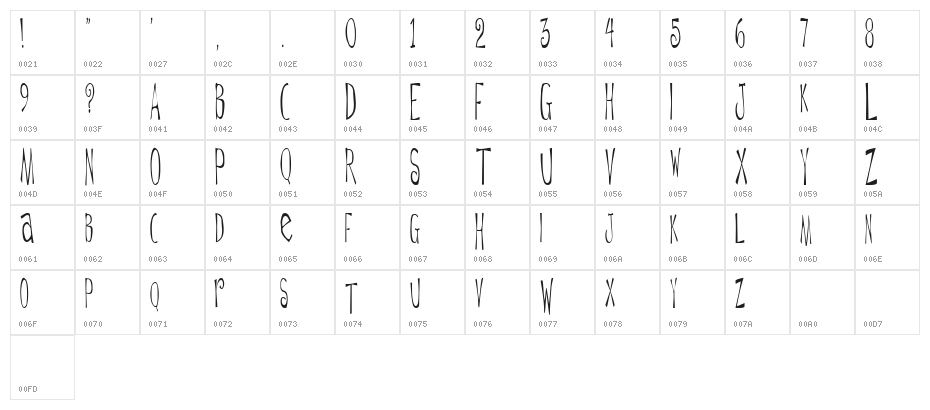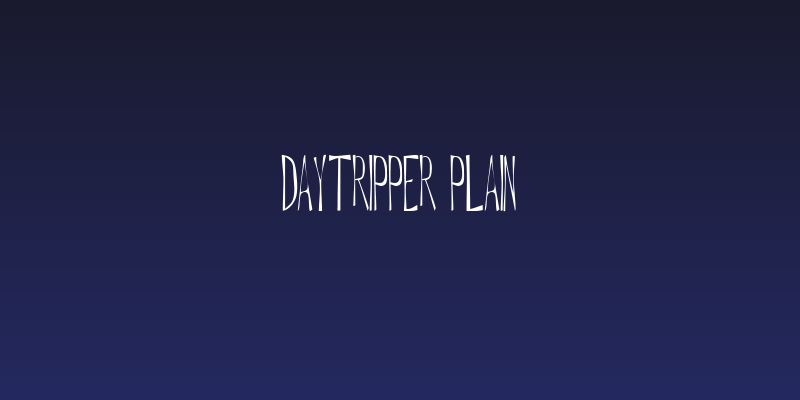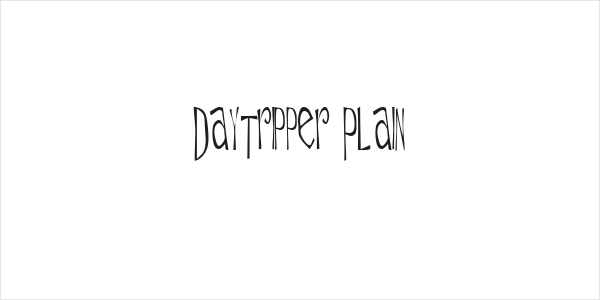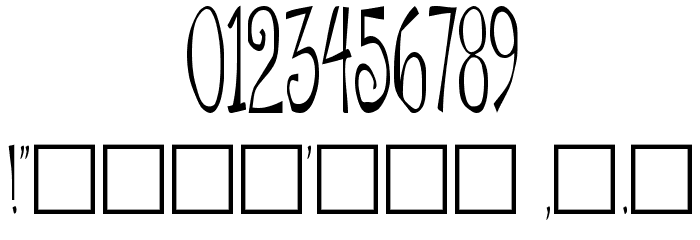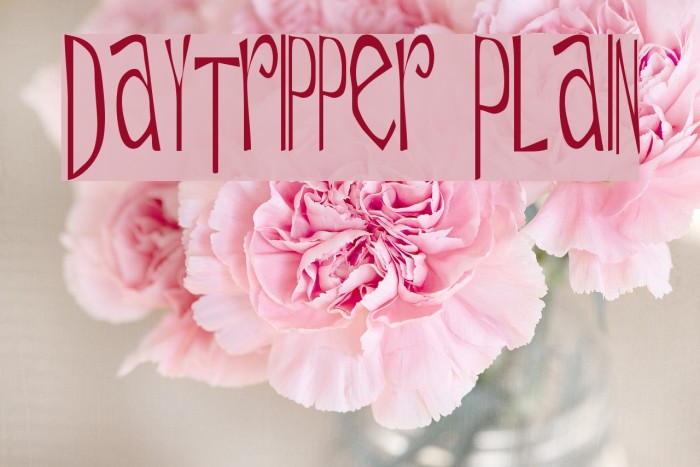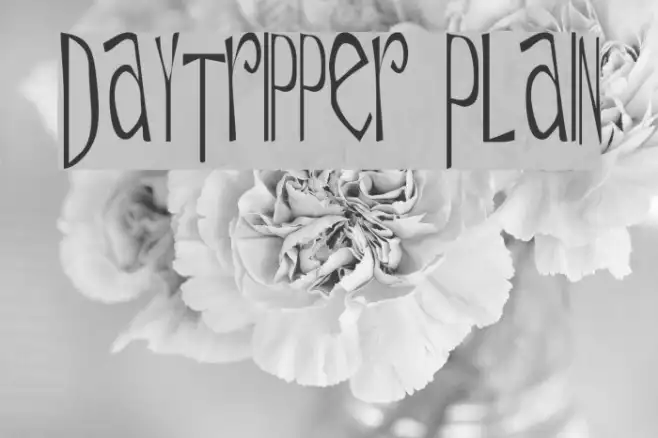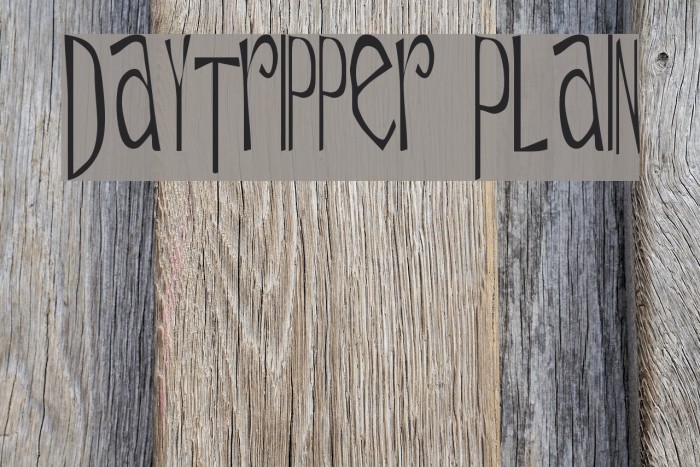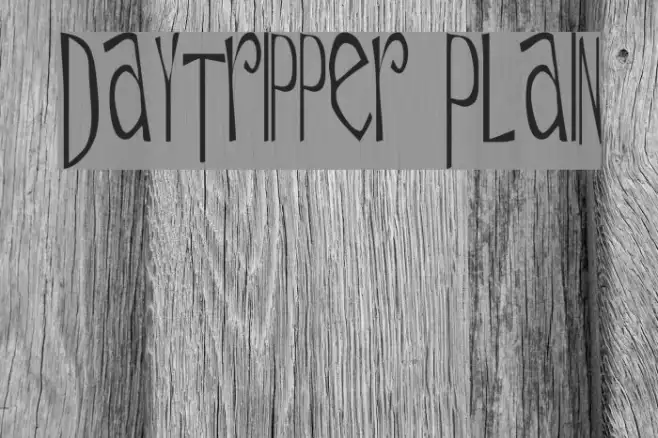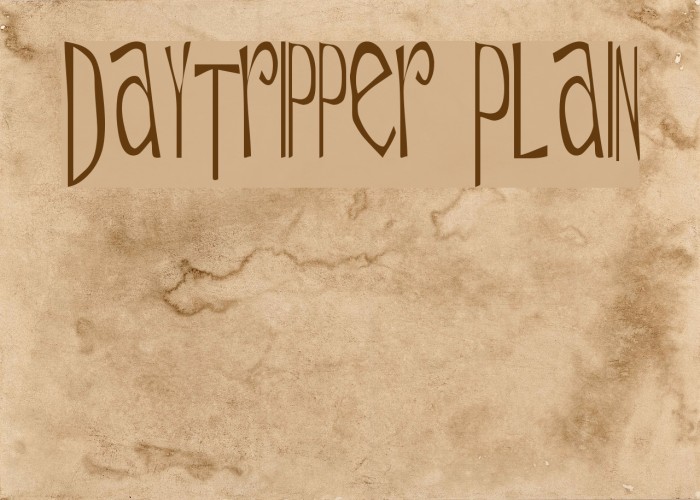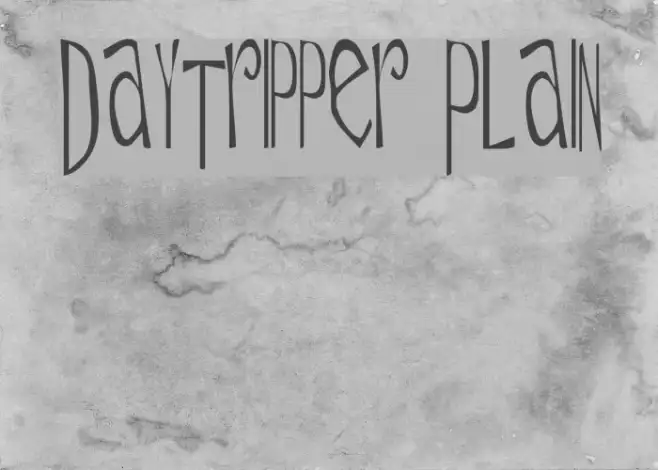
Daytripper Plain Font
Daytripper Plain Description
This font features a playful and whimsical design with tall, narrow characters that have a hand-drawn feel. The uppercase letters are particularly elongated, giving them a unique, artistic flair. The lowercase letters maintain a consistent style, complementing the uppercase with their slightly curved and irregular shapes. Numbers are similarly styled, with a quirky, uneven appearance that adds to the font's charm. The special characters are designed to match the overall aesthetic, ensuring a cohesive look across all text elements. This font's distinct personality makes it ideal for creative and informal projects.
| Overall Style | Playful, Artistic |
| Use Case | Headlines, Posters, Creative Projects |
| Proposed Projects | Ideal for children's books, creative posters, playful branding, and artistic invitations. |